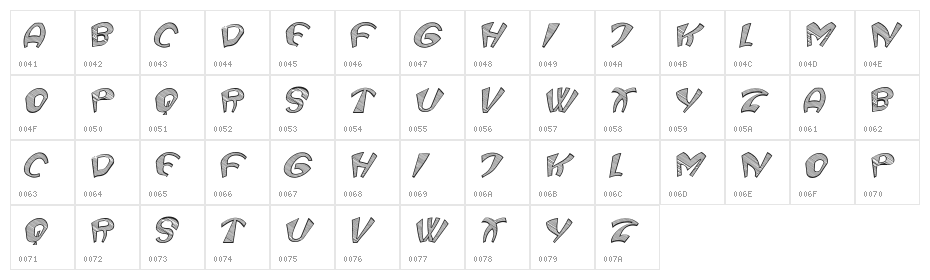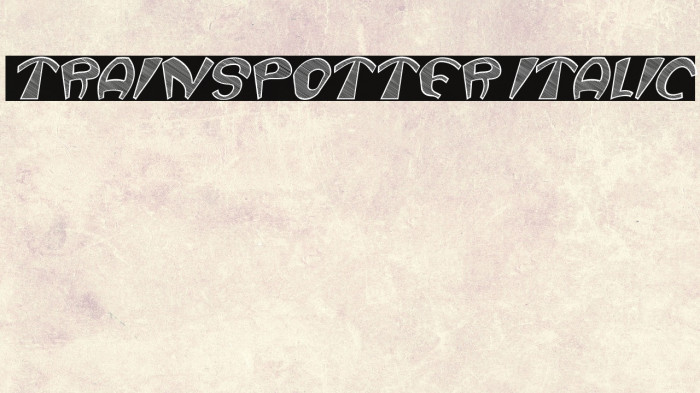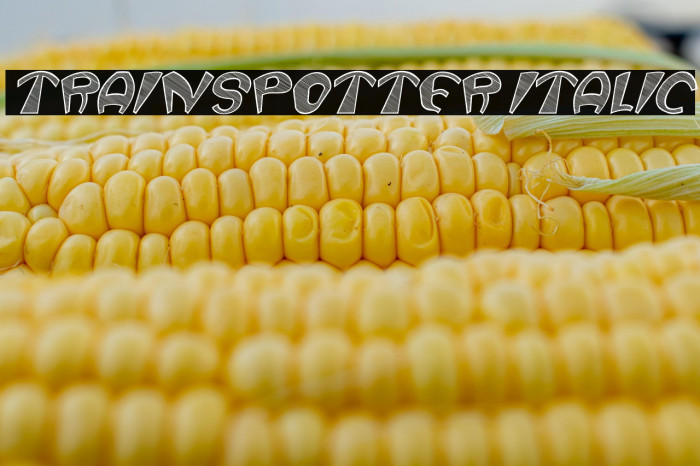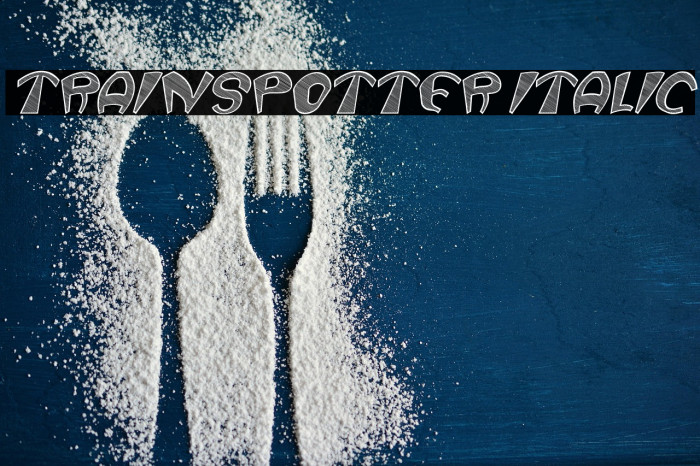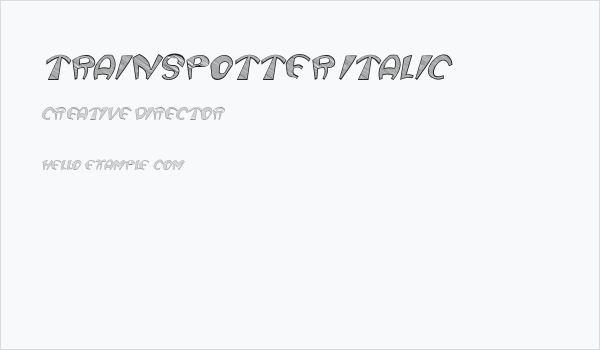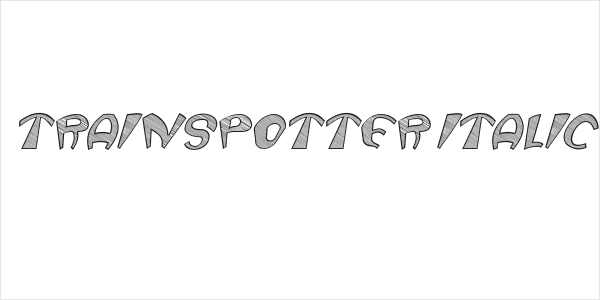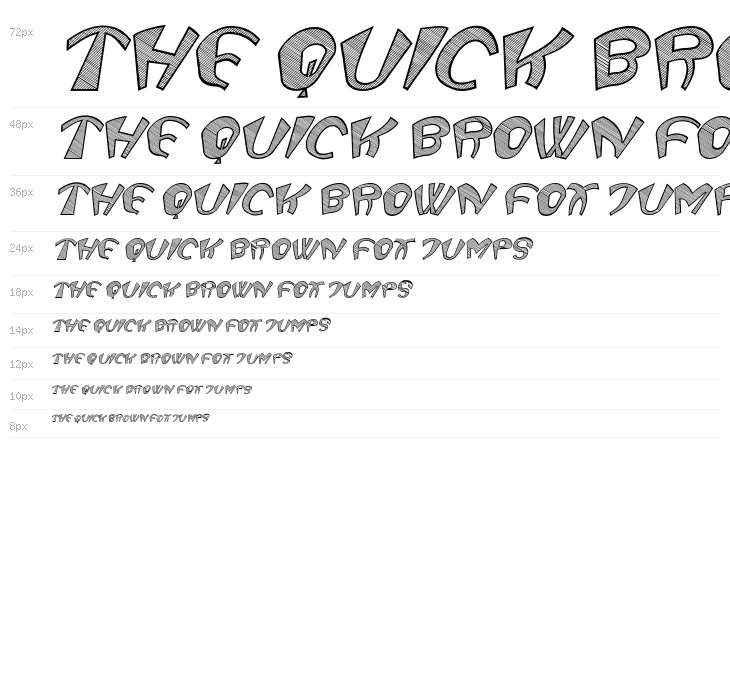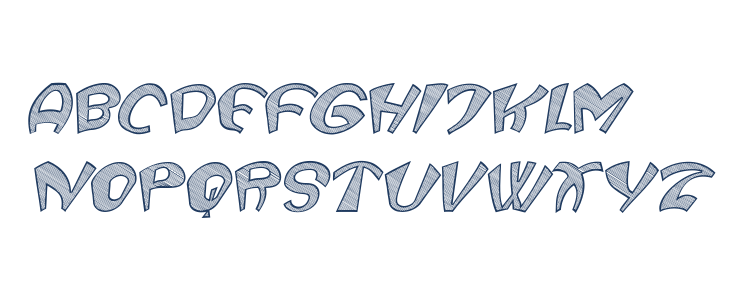
Trainspotter Italic Font
Trainspotter Italic Description
This font features a bold, dynamic style with a playful and energetic appearance. The letters are characterized by their thick, shadowed outlines and a slight italic slant, giving them a sense of movement and flair. The design incorporates a textured, sketch-like fill within each character, adding depth and a hand-drawn quality. The uppercase and lowercase letters maintain a consistent style, with unique, exaggerated shapes that make each character stand out. The numbers and special characters follow the same design principles, ensuring a cohesive look across all glyphs.
Overall StylePlayful, Energetic, Hand-drawn
Proposed ProjectsIdeal for comic book titles, playful branding, children's book covers, and creative posters.